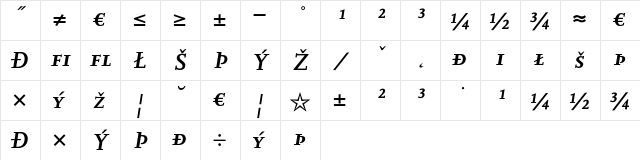
Scala Caps Exp Bold Italic
Design Context for Scala Caps Exp Typeface
Scala Caps Exp is a composed and adaptable typeface that performs quietly and consistently across a wide range of design contexts. The dynamic lean of this cut emphasises speed and emphasis in any layout. Its bold stroke weight gives it real presence on the page.
Pro Tip: Try Scala Caps Exp for annotation and caption copy alongside an upright companion — the contrast in angle creates a dynamic but ordered typographic system.